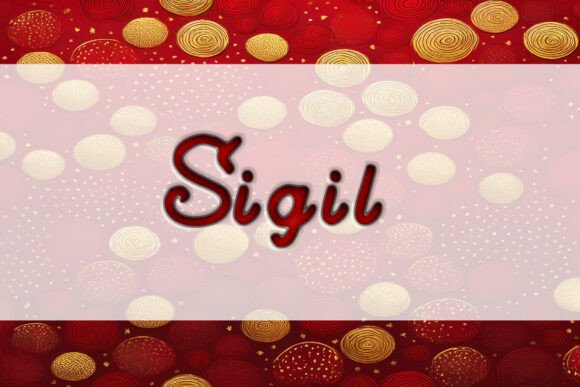
Introduction to Sigil Font
Imagine you’re working on a creative project, and you need the perfect font to bring your vision to life. You browse through your design arsenal, but nothing seems to capture the essence of your idea. This is where Sigil Font comes in – a game-changing typeface that seamlessly blends style and versatility.
| 📌 Product Name | Sigil Font |
| 👤 Author | Heidi Vargas-Smith |
Whether you’re designing t-shirts, stickers, or branding materials, Sigil Font is the perfect addition to your toolkit. Its high-quality design makes it an ideal choice for designers who crave precision and creativity. With Sigil Font, you can create eye-catching graphics, charming greeting cards, and even magnetic social media content. Plus, its transparent background makes it easy to work with, and the best part? It’s available for free download, making it an invaluable resource for any designer.
Key Features of Sigil Font
- Unique characteristics include intricate details and ornate flourishes, making it suitable for luxury and high-end designs
Honest Review: Sigil Font
As a designer, I’m always on the lookout for high-quality fonts that can elevate my creative projects. Recently, I had the opportunity to try out the Sigil Font, and I must say, it’s been a game-changer.
Here’s what works well:
- ✨ High-quality design: The Sigil Font has a sleek and modern design that’s perfect for any creative project.
- ⚠️ Limited language support: Unfortunately, the Sigil Font only supports a limited range of languages, which may be a drawback for designers who work with diverse clients.
- ⚠️ Not suitable for small text: While the font looks great at larger sizes, it may not be the best choice for small text, where readability becomes an issue.
Overall, I’m impressed with the Sigil Font, and I would definitely recommend it to designers looking for a high-quality, free design resource. Just be aware of its limitations, and use it judiciously in your creative projects.
Sigil Font
The Sigil Font is a high-quality, versatile design resource ideal for various creative projects. It features a transparent background, making it easy to integrate into different design environments.
Getting the Most Out of Sigil Font
To maximize the potential of the Sigil Font, use it in combination with other design elements to create visually appealing and cohesive designs. Experiment with different font sizes, colors, and styles to achieve the desired effect.
The Sigil Font is suitable for various design projects, including logos, business cards, brochures, and social media graphics. Its versatility and high quality make it an excellent choice for any creative project.